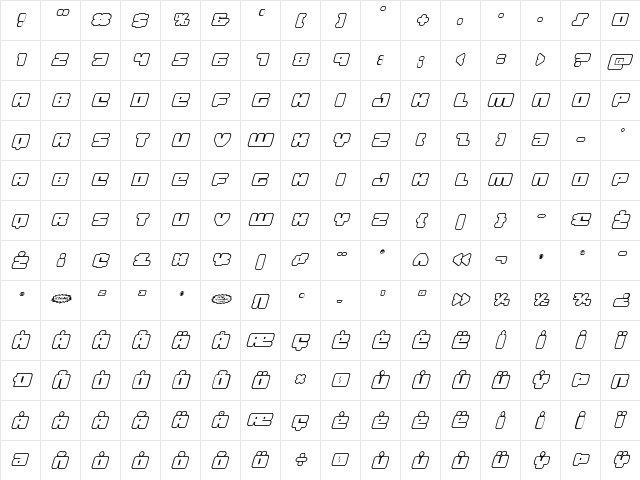
Hula Hoop Girl Bold Outline It Bold Outline Italic Font Preview
Design Context for Hula Hoop Girl Bold Outline It Typeface
Hula Hoop Girl Bold Outline It is built around its visual character rather than neutral utility — its distinctive forms are designed to make an impression at display sizes. The dynamic lean of this cut emphasises speed and emphasis in any layout. Its bold stroke weight gives it real presence on the page.
Font Pairing: Pair with a clean neutral sans-serif for body copy to let Hula Hoop Girl Bold Outline It's character lead without overwhelming the composition.
Pro Tip: Treat Hula Hoop Girl Bold Outline It as the centrepiece of your typographic hierarchy. One strong heading set in a decorative face can carry an entire layout.